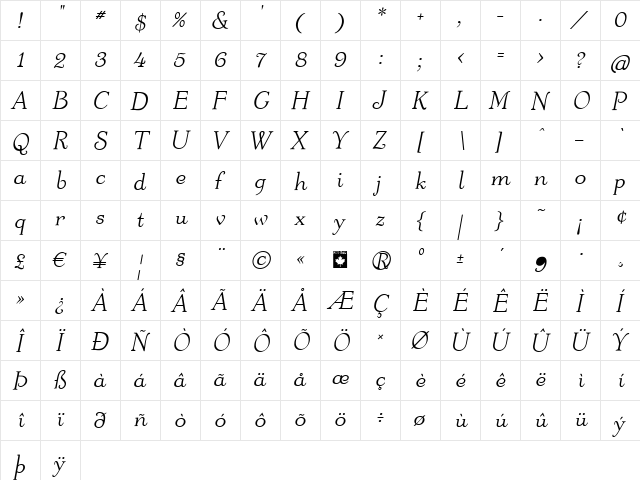
Odette Italic
Design Context for Odette Typeface
Odette is a composed and adaptable typeface that performs quietly and consistently across a wide range of design contexts. The dynamic lean of this cut emphasises speed and emphasis in any layout.
Pro Tip: Use Odette for emphasis, pull quotes, and subheadings where its slanted energy can add rhythm to the layout.